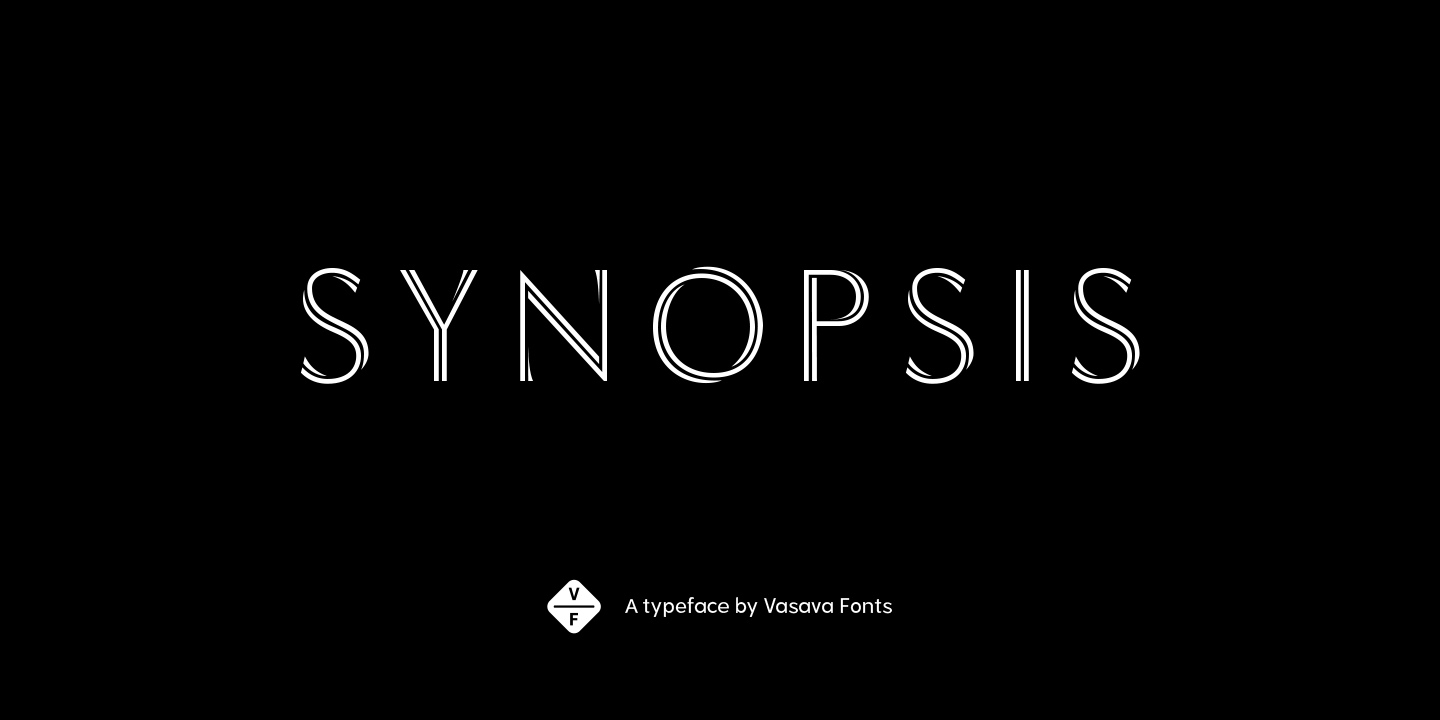
You can use Synopsis Font in movie posters, book covers, editorial titles, documentary branding, screenwriting projects, and cinematic social media graphics. It’s ideal for designs that demand storytelling power and emotional depth.
What makes this font exciting is its sleek, cinematic presence—blending clean lines with dramatic flair. It feels like a movie trailer in typography form: gripping, elegant, and full of narrative energy. Whether you're designing for the screen or the page, it adds instant gravitas.
Synopsis Font comes in a versatile family of styles including Light, Regular, SemiBold, Bold, and Italic versions. This typographic range allows you to maintain visual harmony while building emphasis where needed—perfect for layered designs and content hierarchy.
For creatives looking to craft bold, editorial-forward visuals, Synopsis Font Free Download is a smart starting point. Test its expressive style and let your message unfold with cinematic precision and emotional resonance.